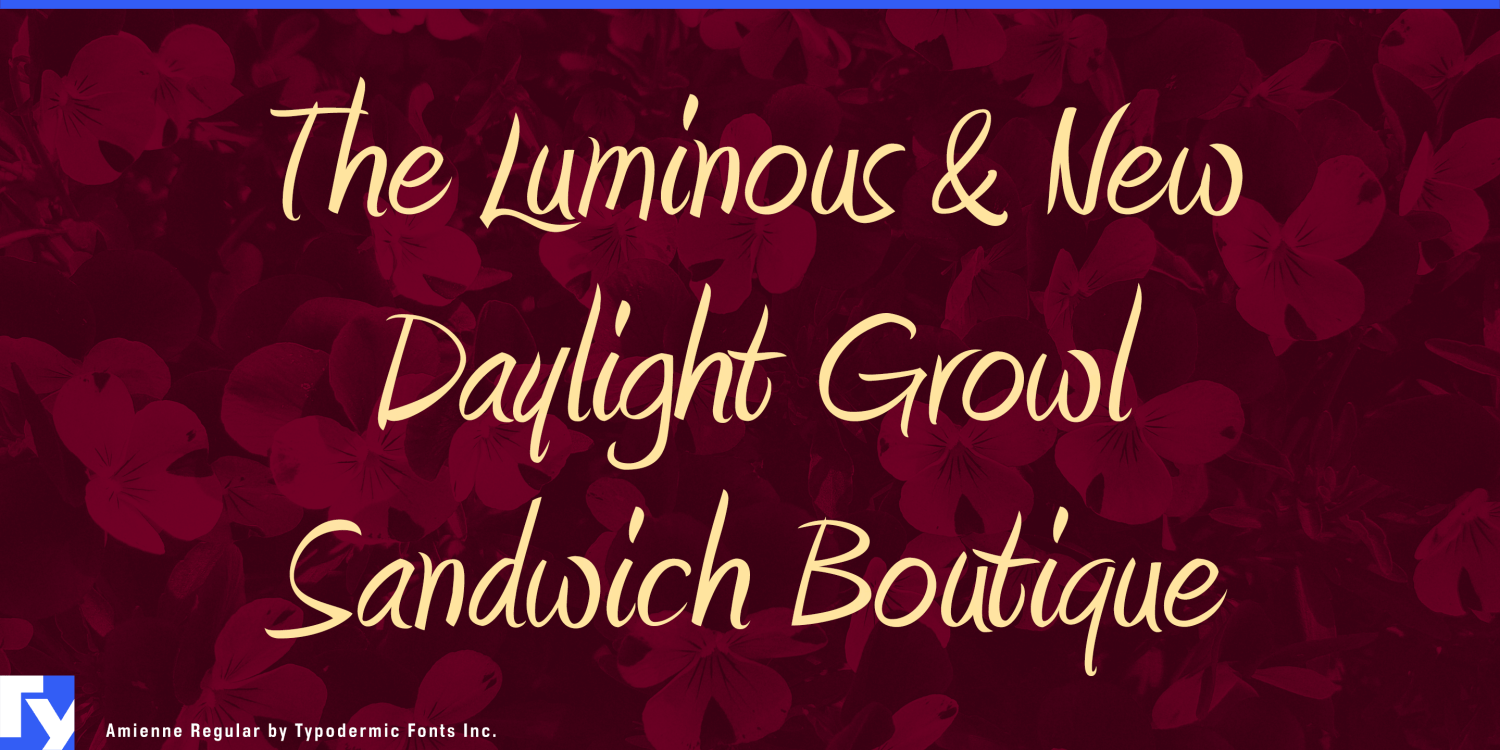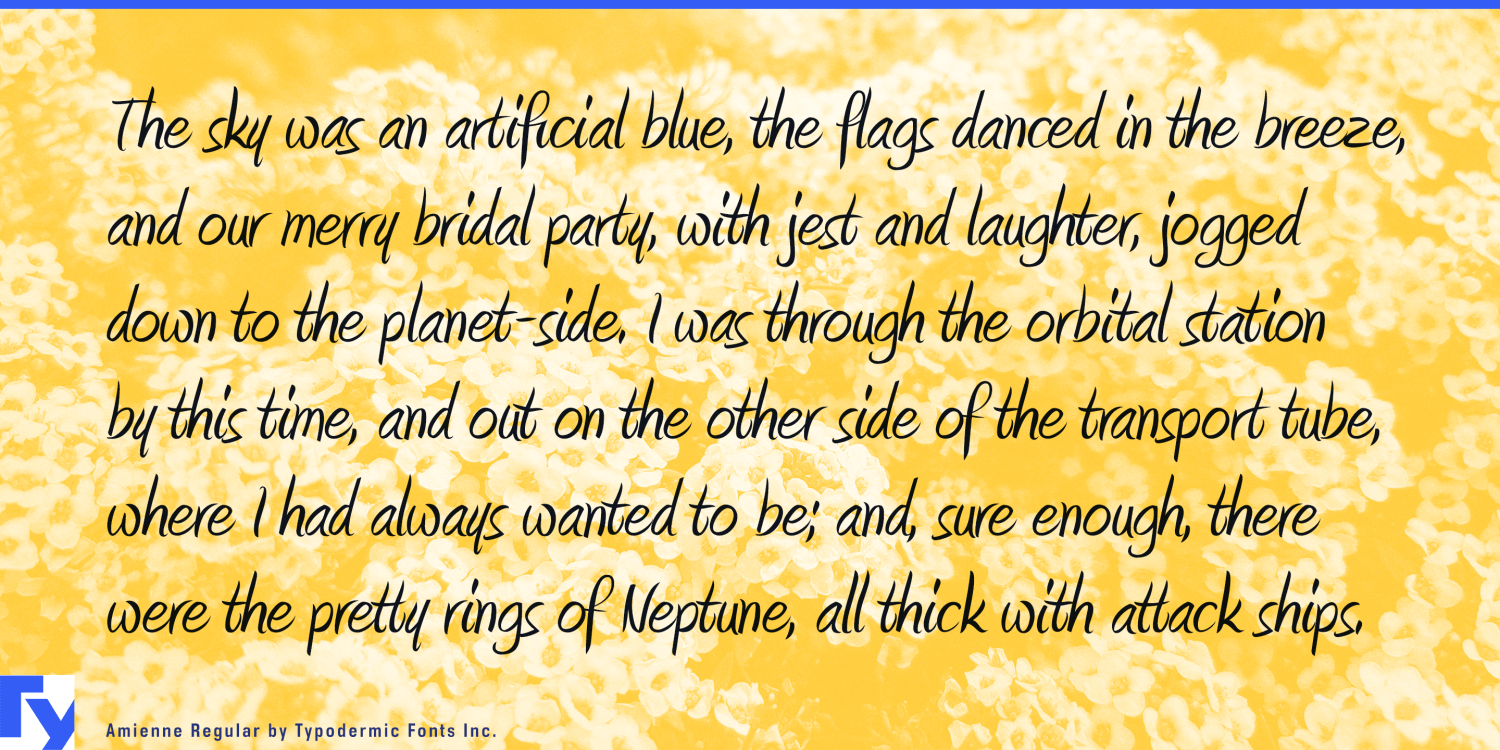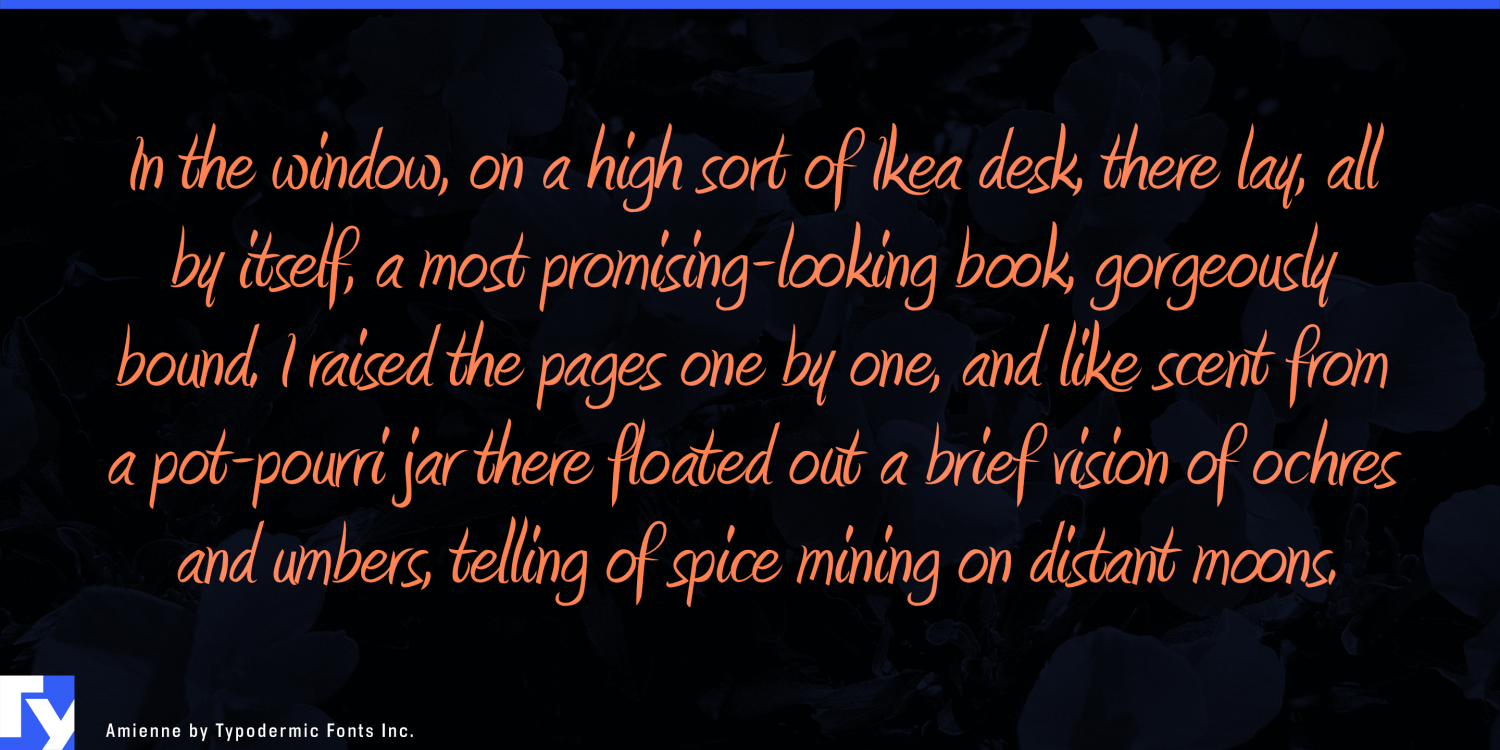
About Amienne
Discover Amienne, a typeface that breathes life into your designs with its effortless charm and vivacity. This expertly crafted brush script dances across the page, infusing your projects with a delightful fusion of spontaneity and grace. At the heart…